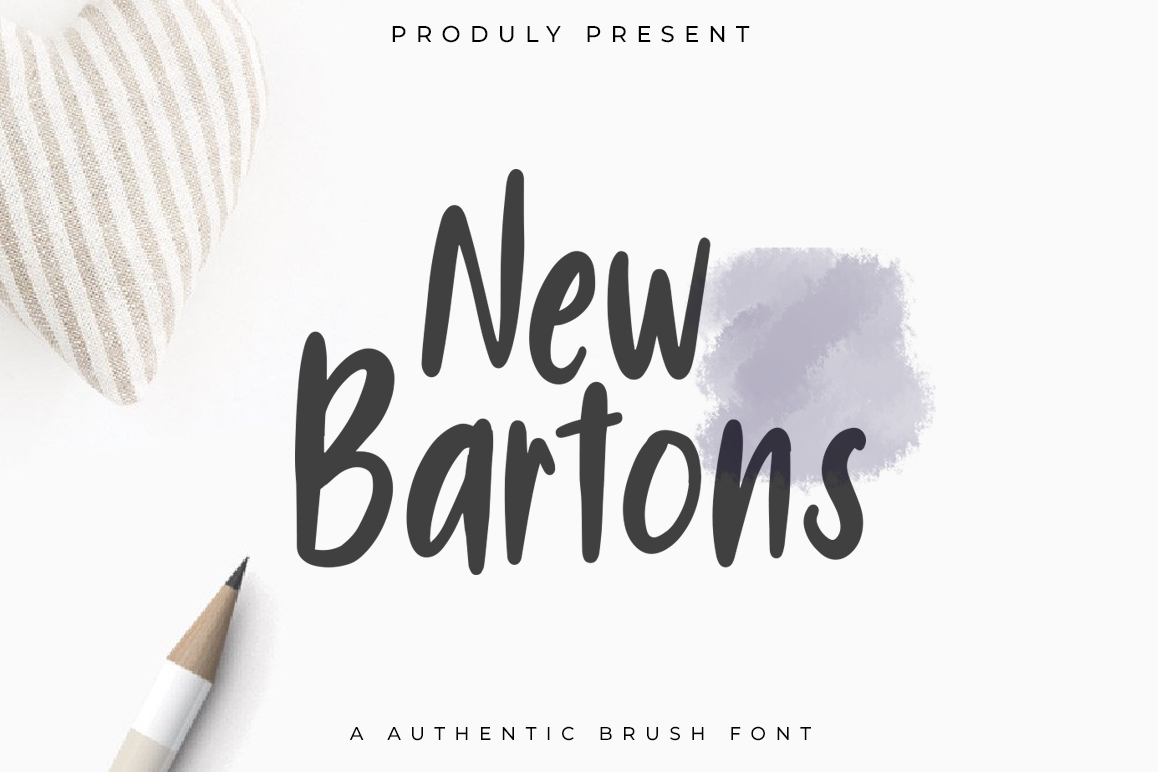
New Bartons
NewBartons-Regular
New Bartons is cheerful handmade brush font, with a bold weight perfect for adding some romance and charm to your designs. This script functions most strongly as a display or headline font. suitable for logo, logotype, branding, fashion, label, book cover, t-shirt, instagram post, and other